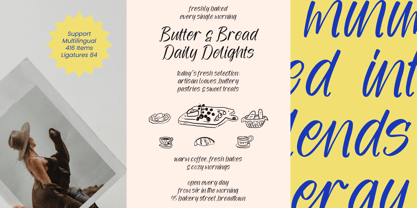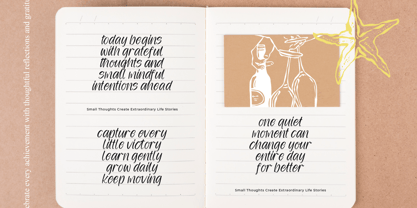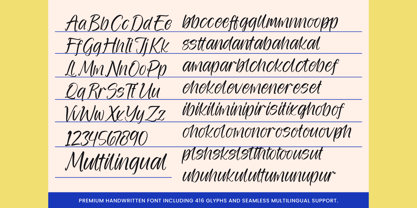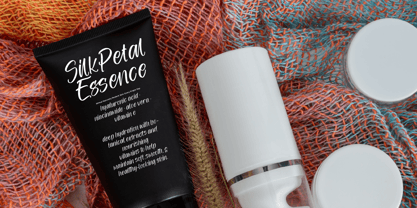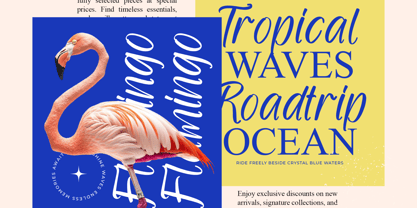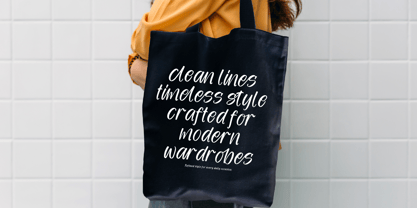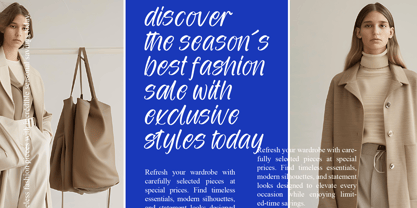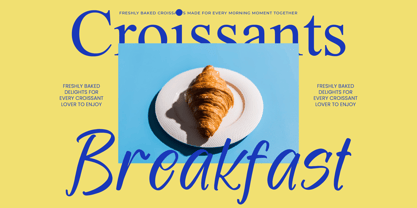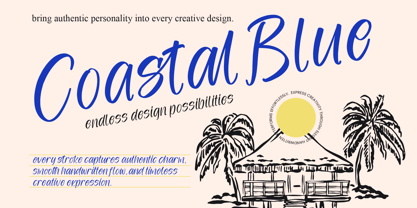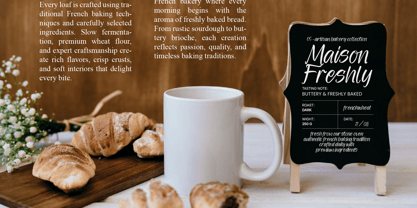
Coastal Blue
por Stylishtype Studio
La familia tipográfica Coastal Blue fue diseñada por Heru Utama Putra y publicada por Stylishtype Studio. Coastal Blue contiene 2 estilos y opciones de paquete familiar. Más información sobre esta familia
Experience the perfect blend of organic elegance and contemporary flair with Coastal Blue - New Modern Handwritten. This typeface captures an authentic charm and smooth handwritten flow that brings a personal, artisanal touch to any digital or print canvas. Its high-contrast strokes and dynamic letterforms evoke a sense of effortless sophistication, making it an essential tool for designers seeking a balance between casual aesthetics and professional precision.
Diseñadores: Heru Utama Putra
Fundición: Stylishtype Studio